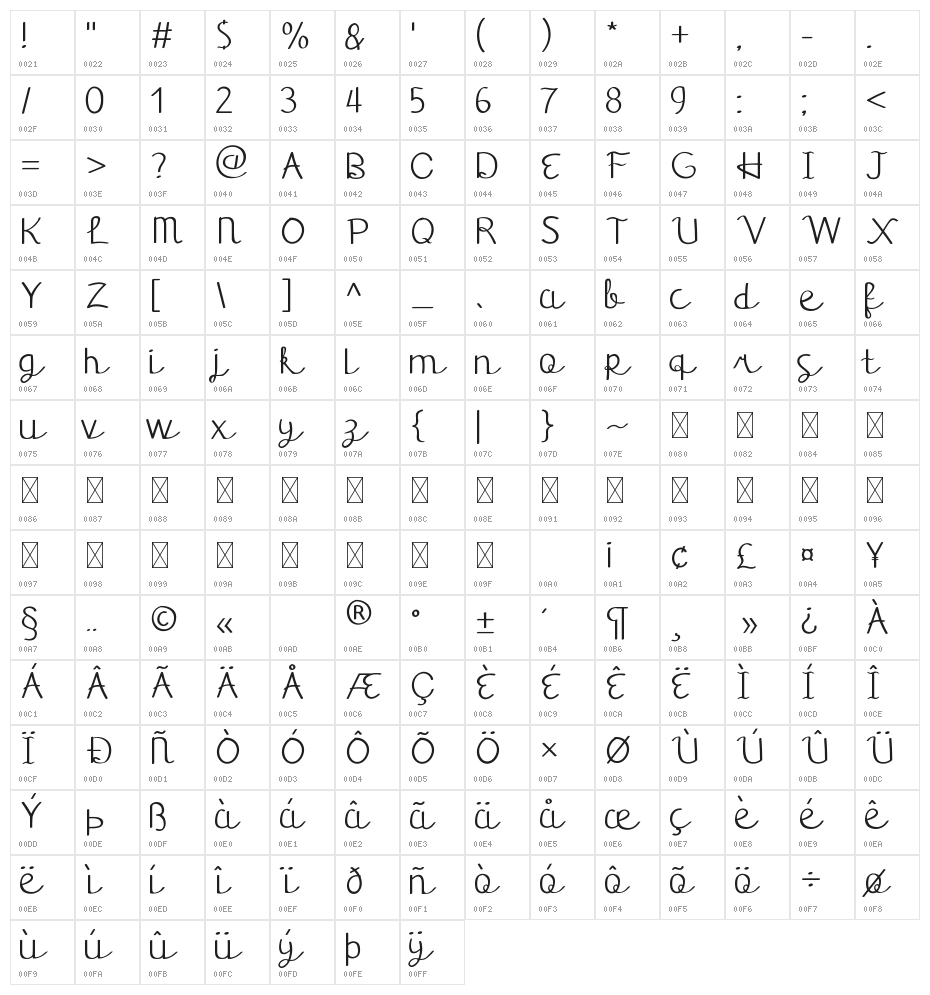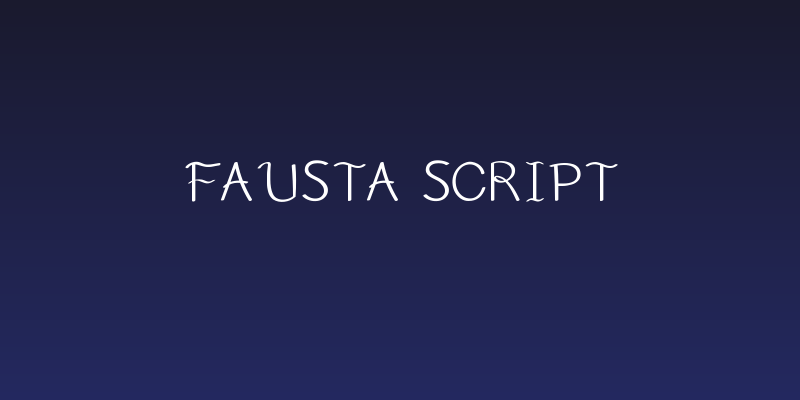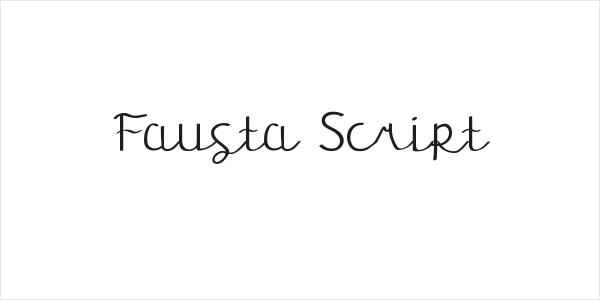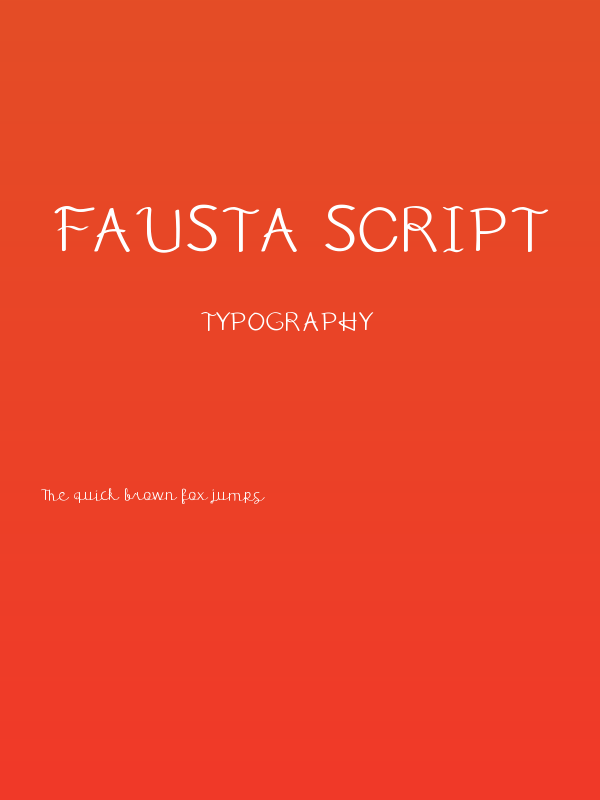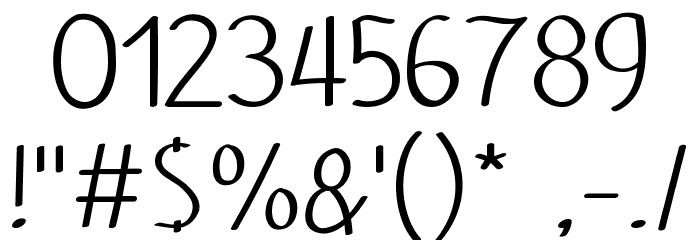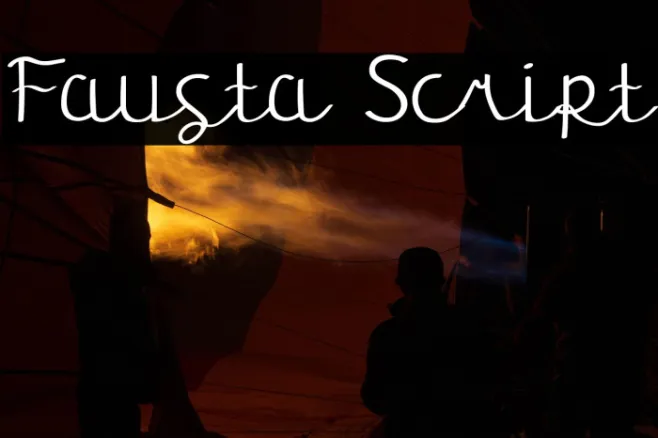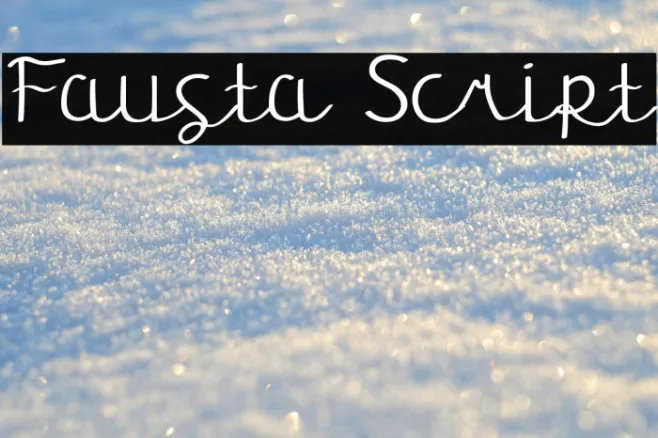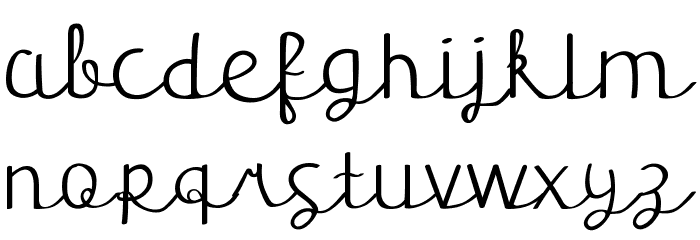
Fausta Script Font
Fausta Script Description
This font features a playful and elegant script style, characterized by its fluid, cursive strokes and a touch of whimsy. The uppercase letters are bold and slightly exaggerated, with unique flourishes that add a decorative element. The lowercase letters maintain a consistent flow, connecting smoothly in a way that mimics natural handwriting. Numbers are clear and legible, maintaining the same playful style. Special characters are designed with the same attention to detail, ensuring they blend seamlessly with the rest of the typeface. This font is perfect for projects that require a personal, artistic touch.